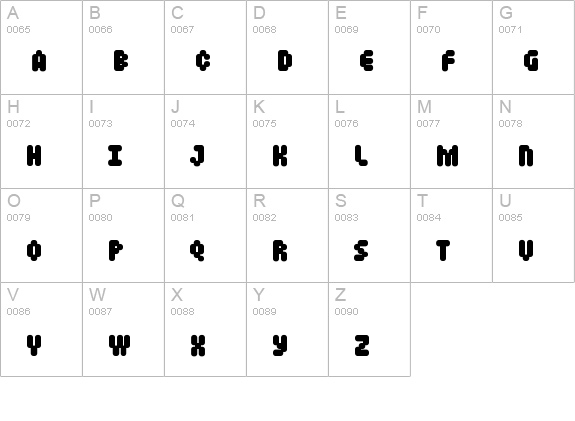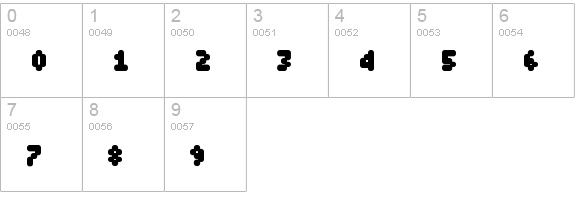
Mastertext-Heavy is a heavy, high-impact variant in the Mastertext typeface family \xE2\x80\x94 well suited to high-impact headlines, posters, and display advertising.
Introducing Mastertext-Heavy font, a bold and commanding typeface designed to make a statement. With its robust and powerful letterforms, this font effortlessly captures attention and demands to be noticed. Perfect for headlines, posters, and logos, Mastertext-Heavy exudes confidence and strength. What sets Mastertext-Heavy font apart is not only its striking appearance but also its versatility. Whether used for print or digital design, this font remains legible and impactful, even at smaller sizes. Its clean lines and well-defined curves ensure readability, while its weighty presence adds a touch of drama to any project. But what makes Mastertext-Heavy truly exceptional is the fact that it is freely available to download at FontsMarket.com. Yes, you heard that right! This powerful font can be yours without spending a dime. FontsMarket.com, a reputable online platform for font enthusiasts, offers this remarkable typeface as a gift to designers, students, and creatives alike. Don't miss out on the opportunity to elevate your designs with Mastertext-Heavy font. Download it today from FontsMarket.com and experience the impact and versatility of this exceptional typeface. Let your creativity soar as you harness the strength and boldness of Mastertext-Heavy in your designs.